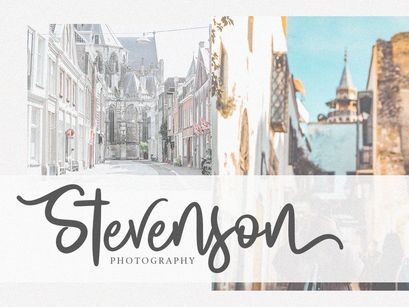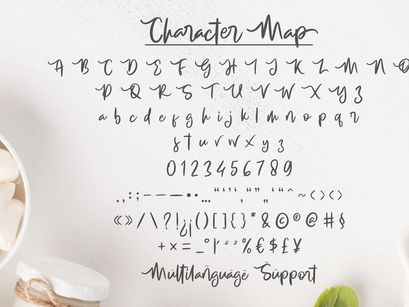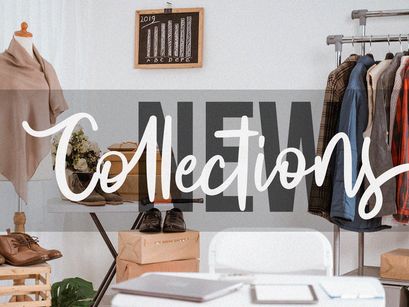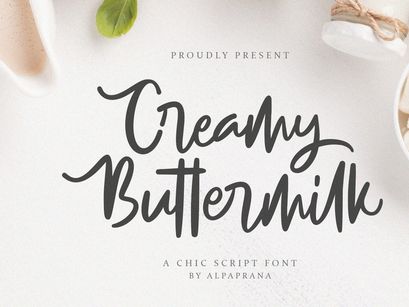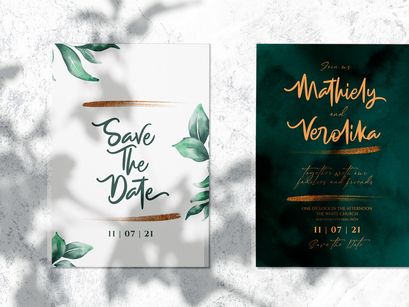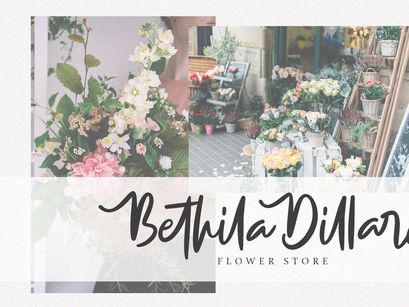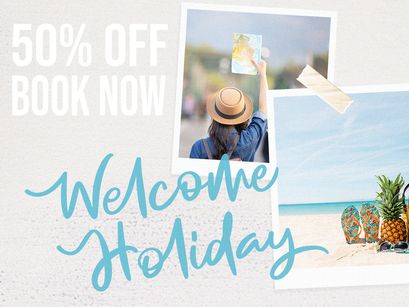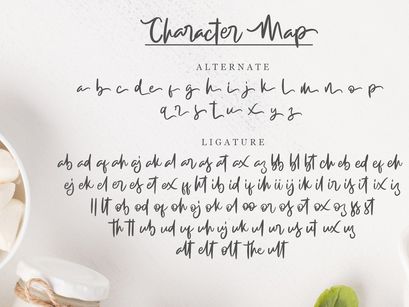
Creamy Buttermilk - Casual Handwritten Font
Creamy buttermilk is a stunning modern style script font with authentic and casual feels. It will be perfectly used for Branding, Logo Design, Lettering, Logotype, Clothing, Poster, magazine, packaging, posters, shopping bags, t-shirts, book covers, photography, special events and other design project.